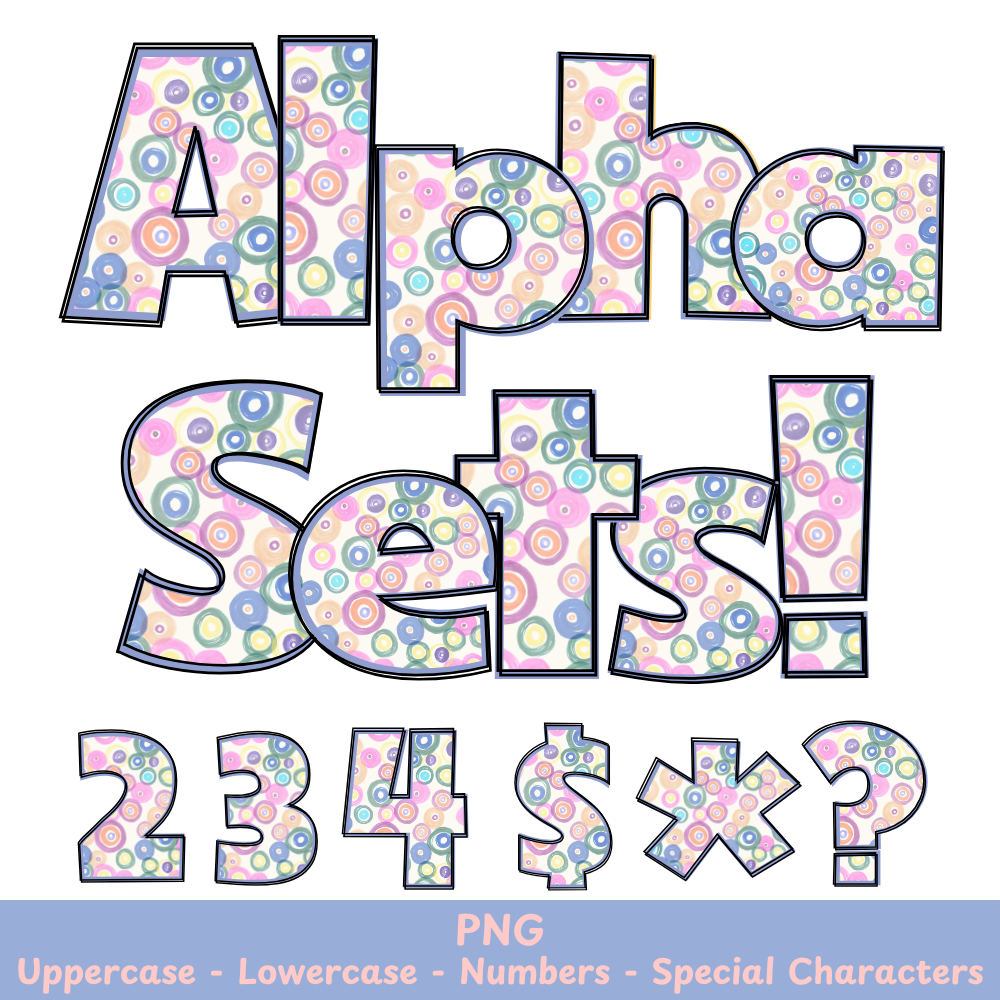
Blue Polka Dots PNG Font
Blue Polka Dots Alpha Set PNG Font Pack
Upgrade your design game with our Blue Polka Dots PNG Font! Perfect for a touch of playful charm to your crafts and sublimation projects. This font features a fun blue polka dot pattern that will make your designs stand out. Add a unique twist to your creations with ease.